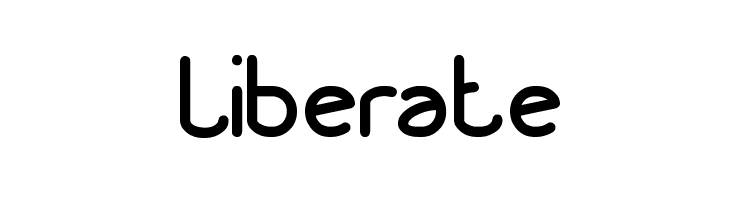
A playful, rounded font with smooth curves and consistent stroke width.
A geometric, futuristic font with intersecting lines and sharp angles.
A playful, pattern-filled font with a bold, 3D effect.
An intricate, decorative font with elongated, geometric letterforms.
A playful, handwritten font with a bold, dynamic style and slight slant.
A bold, angular font with a modern and energetic style.
Casual handwritten font.